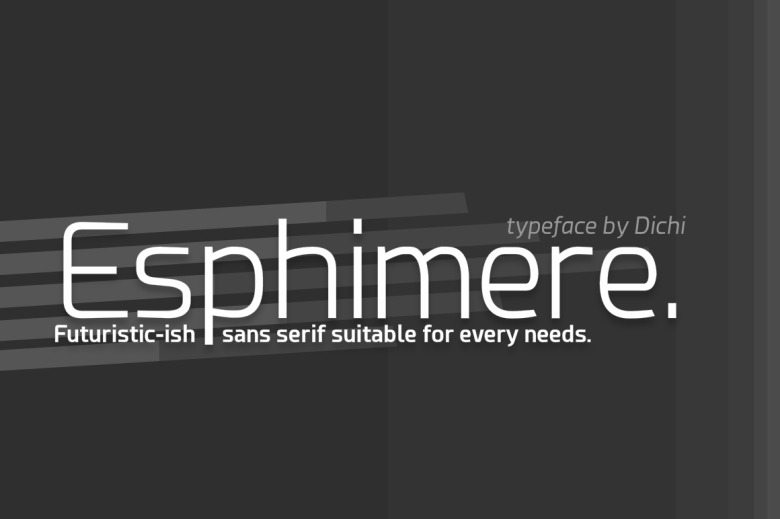
Esphimere Font
Esphimere is a Sans Serif typeface with a futuristic look and feel.The versatility of Esphimere enables you to embed it to any project you like, but as this is a futuristic font, Esphimere will look best on futuristic themed projects.
Esphimere Sans Serif Font Family